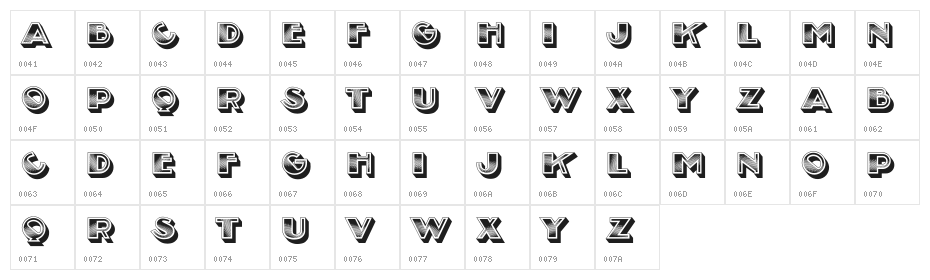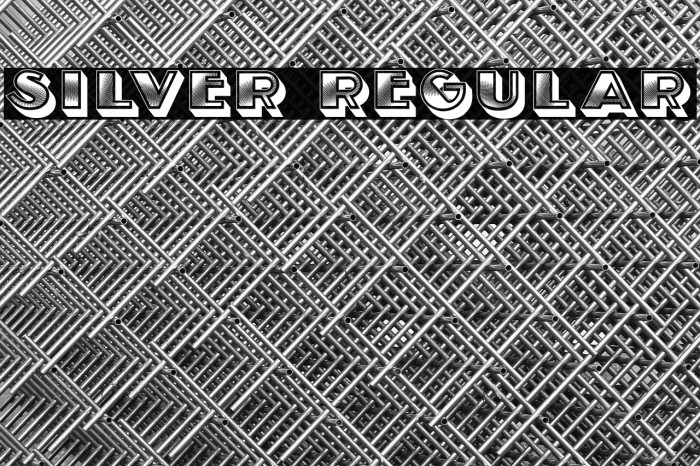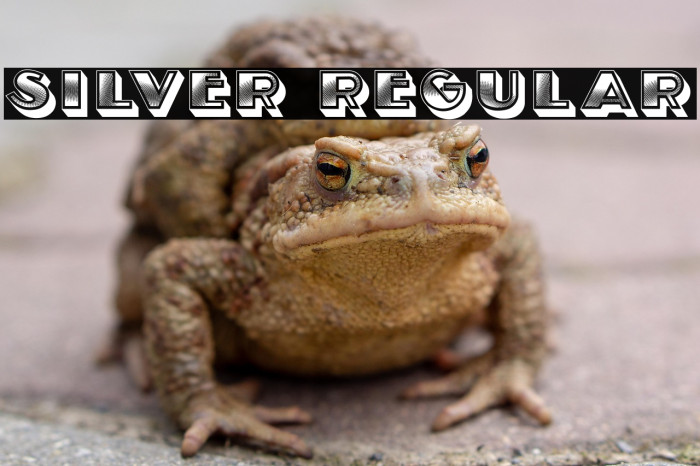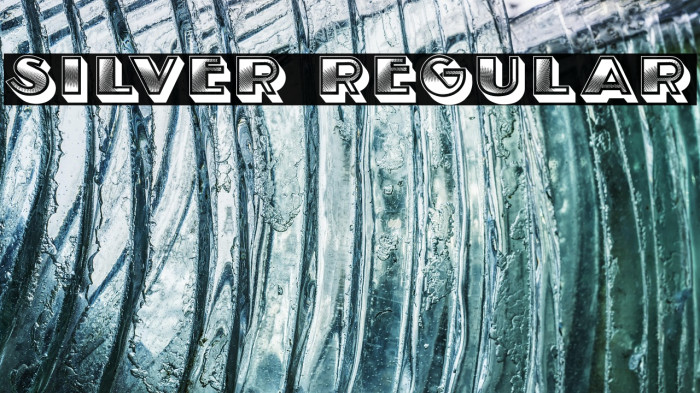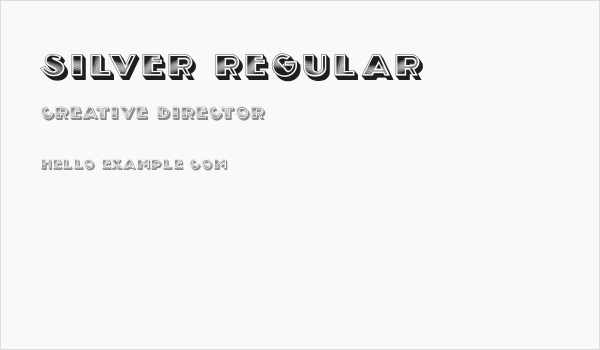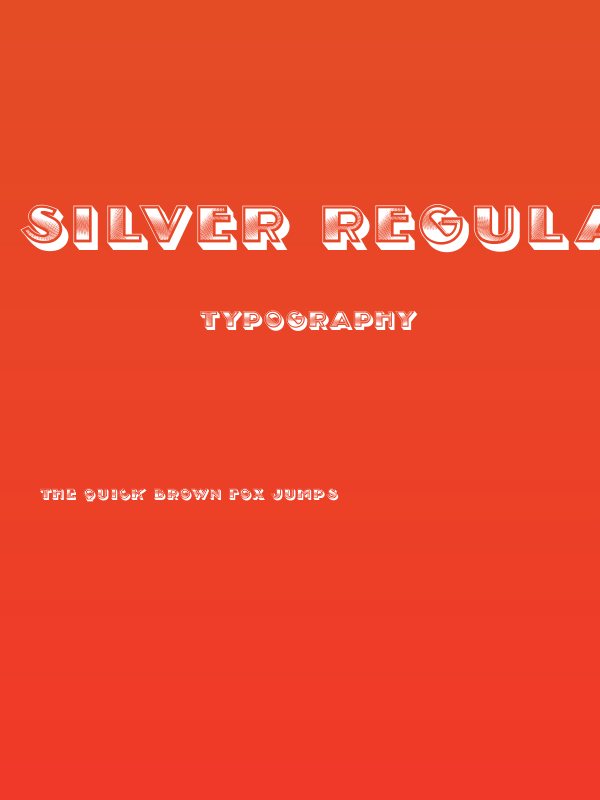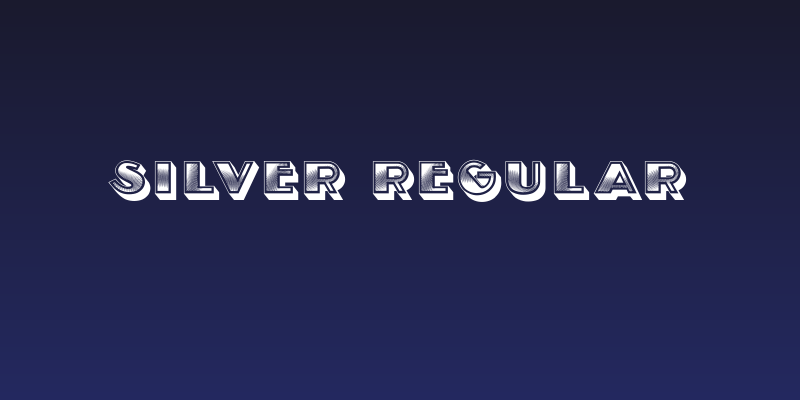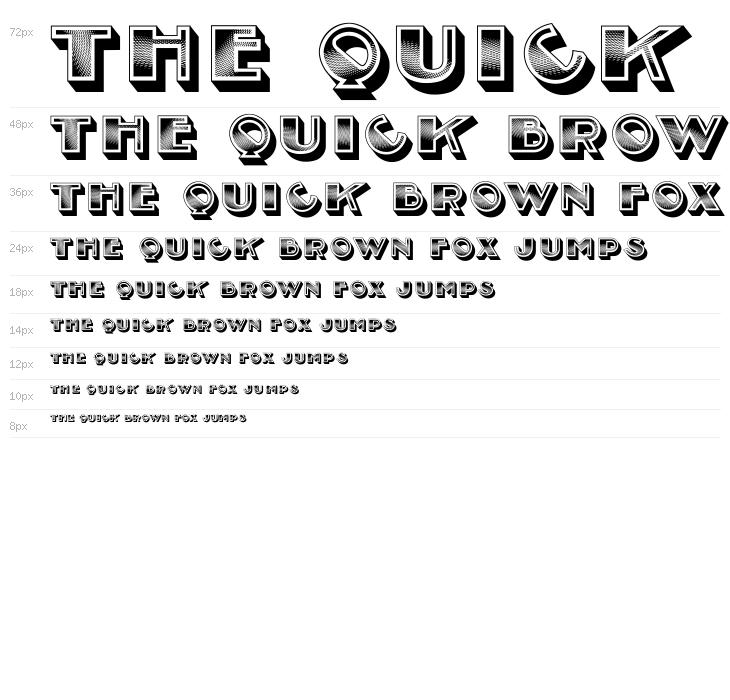
Silver Regular Font
Silver Regular Description
This font features a bold, decorative style with a three-dimensional appearance. Each character is designed with a shadow effect that gives it depth and a sense of solidity. The letters are uppercase, with a consistent width and height, creating a uniform look. The intricate detailing within each letter, including diagonal lines and shading, adds a textured effect that enhances its visual appeal. This font is ideal for making a strong statement and is suitable for designs that require a bold, eye-catching typeface.
| Proposed Projects | Ideal for poster designs, branding, headlines, and any project that requires a striking, attention-grabbing font. |